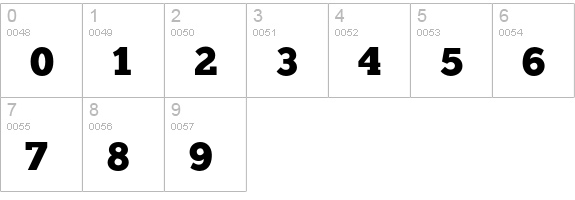
ChunkFive Font Details
ChunkFive is a modern and bold typeface that exudes strength and character. With its clean lines and distinctive letterforms, ChunkFive commands attention and adds a touch of sophistication to any design project. This versatile font is perfect for headlines, posters, logos, and more, making it a go-to choice for designers looking to make a statement. The best part? ChunkFive is available for free download at FontsMarket.com. Now you can easily access this eye-catching font and elevate your designs without breaking the bank. Don't miss out on the opportunity to add ChunkFive to your font collection and bring a touch of boldness to your next project.